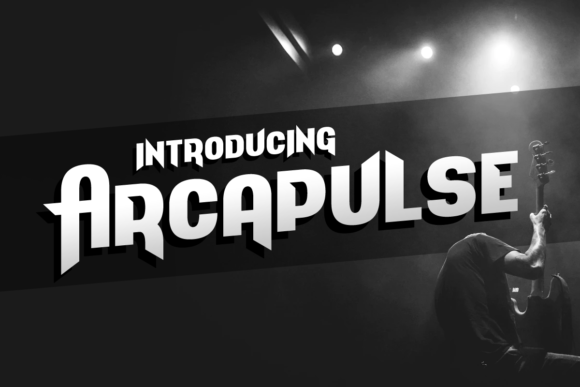
The Perfect Blend of Form and Function: Arcapulse Font
Have you ever been stuck in a creative rut, staring blankly at a blank page, searching for the perfect font to bring your vision to life? It’s a feeling designers know all too well. But what if you could unlock a font that effortlessly weaves together functionality and style, making it the perfect companion for your next design project?
Enter the Arcapulse Font, a versatile typeface designed to adapt to a wide range of applications. From digital displays to print materials, Arcapulse Font is the ultimate chameleon, effortlessly shifting between modern and classic vibes to suit your creative needs. Whether you’re working on a futuristic sci-fi project or a vintage-inspired campaign, this font is sure to elevate your design game.
For designers, the value of Arcapulse Font lies in its ability to seamlessly integrate into any project, no matter the theme or style. Its flexibility makes it an indispensable tool in your design arsenal, allowing you to focus on the creative aspects of your work while the font takes care of the rest.
Arcapulse Font Key Features
- Unique Characteristics: Arcapulse Font features a unique blend of modern and vintage elements, with a distinctive flair that sets it apart from other sans-serif fonts.
- Font Metrics: The font’s x-height, line spacing, and other metrics are carefully crafted to ensure optimal readability and visual appeal.
Arcapulse Font Review
First off, I have to say that I’m really impressed with the overall aesthetic of the Arcapulse font. ✨ It’s modern, sleek, and has a unique flair to it. The font is designed to be highly legible, even at smaller font sizes, which is a major plus in my book. I also appreciate the fact that it’s available in a wide range of weights, from light to bold, making it super versatile for any design project.
One of the standout features of the Arcapulse font is its ability to work well in both digital and print formats. ✨ It’s perfect for designing websites, social media graphics, or even creating promotional materials for your business. The font also has a great feel to it, with subtle curves and lines that add to its overall charm.
What Doesn’t Work So Well
- ⚠️ Limited language support: Unfortunately, the Arcapulse font is only available in a limited number of languages, which may be a drawback for designers who need to work with non-English clients or projects.
- ⚠️ Limited character set: The font also has a relatively small character set, which may cause issues when trying to typeset complex text or use special characters.
In conclusion, I think the Arcapulse font is a great addition to any designer’s toolkit. ✨ While it may have some limitations, its unique aesthetic and versatility make it a solid choice for a wide range of design projects. I’d definitely recommend giving it a try, especially if you’re looking for a modern, sleek font that’s perfect for digital or print applications.
Practical Application Guide: Arcapulse Font
Tips for Getting the Most Out of Arcapulse Font
Here are a few tips for getting the most out of the Arcapulse font:
- Experiment with different font sizes and styles to find the perfect balance for your project.
- Use the Arcapulse font in combination with other fonts to create a unique and visually appealing design.
- Consider using the Arcapulse font for headings or titles to add a touch of elegance and sophistication.